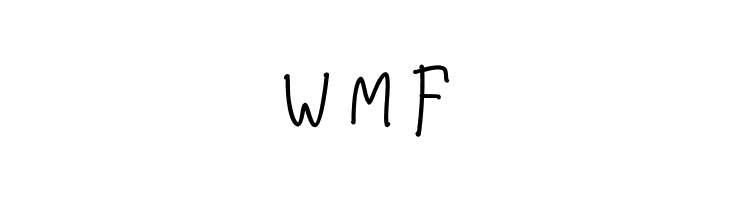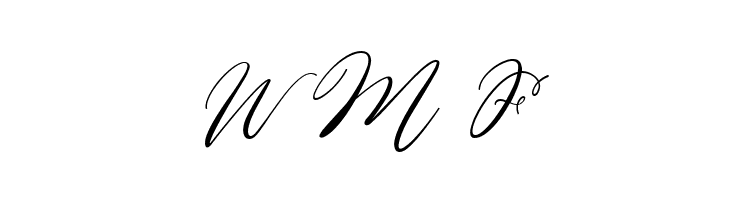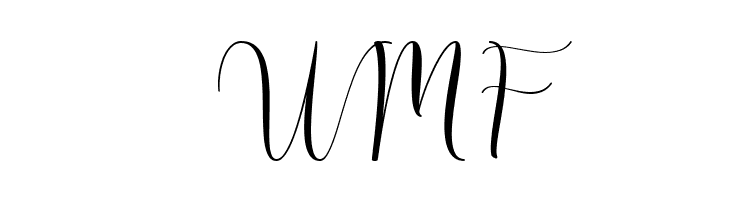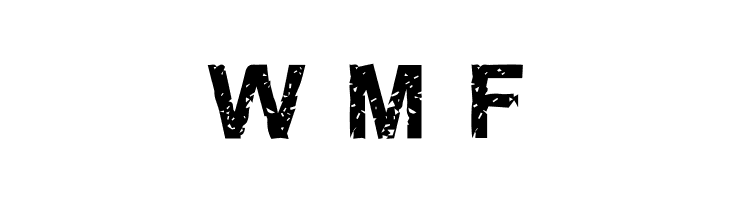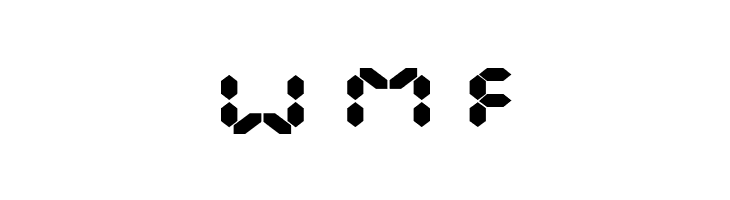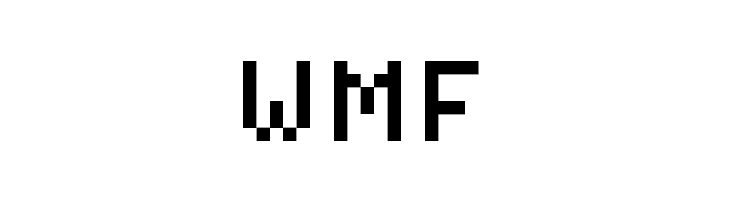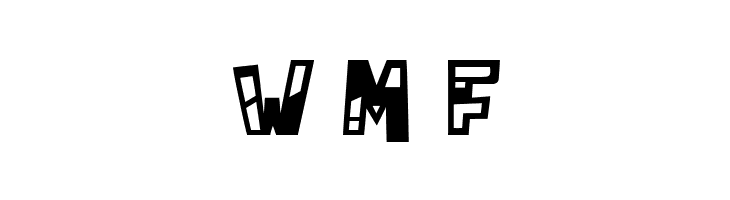
A playful, bold handwritten font with rounded strokes and a casual style.
A playful, bold handwritten font with rounded letterforms and a casual style.
A playful, hand-drawn font with whimsical, child-like illustrations.
A playful handwritten font with smooth, rounded strokes and a casual style.
A playful, handwritten font with smooth curves and a casual style.
A graceful script font with fluid, cursive strokes and elegant character design.
A whimsical, hand-drawn font featuring quirky, cartoon-like characters.
A decorative and ornate font with vintage flair, ideal for artistic projects.
An elegant script font with an engraved, diagonal line pattern.
A modern engraved font with a diagonal line pattern and cursive lowercase letters.
A dynamic and flowing script font with elegant, fluid strokes.
A bold, angular font with a medieval or fantasy-inspired aesthetic.
An elegant script font with fluid, cursive strokes and graceful loops.
A bold, geometric font with a strong, industrial aesthetic.
A bold, futuristic font with geometric shapes and sharp angles.
An ornate decorative font with intricate floral designs on uppercase letters.
An elegant serif font with high contrast and sharp serifs, blending classic and decorative styles.
A classic serif font with elegant, decorative elements and modern touches.
A classic serif font with sharp, angular serifs and a formal, elegant style.
A classic serif font with calligraphic influences and elegant, angular serifs.
A vintage serif font with elegant curves and sharp serifs.
An elegant italic font with high contrast and a classic style.
A bold, cursive font with elegant, flowing letterforms and sharp serifs.
A modern, rounded sans-serif font with smooth curves and bold weight.
A modern, bold italic font with rounded, smooth characters.
A clean, modern sans-serif font with geometric structure and rounded edges.
A sleek, modern, extra-light italic font with rounded edges and smooth curves.
A sleek, modern italic font with rounded, smooth characters and a friendly appearance.
A modern, rounded sans-serif font with a clean and approachable design.
A sleek, modern, and light italic font with smooth curves and balanced spacing.
A modern sans-serif font with rounded edges and balanced spacing.
A modern, rounded italic font with a friendly and dynamic style.
A modern, rounded sans-serif font with a clean and friendly appearance.
A modern, rounded font with a clean and friendly design.